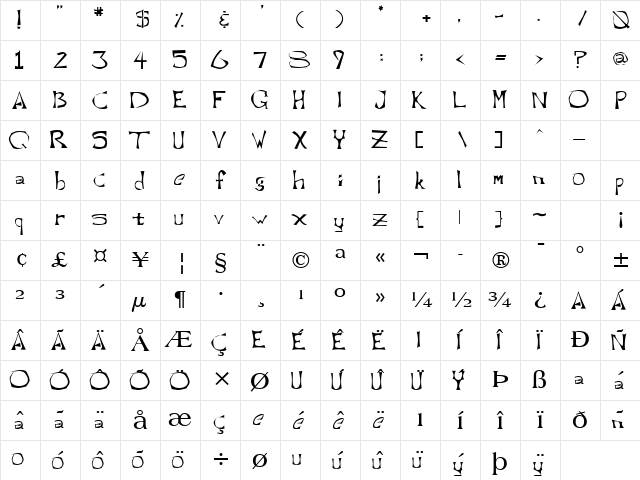
Untitled Regular Free Font
Untitled Regular
Untitled Family
Untitled Regular
Design Context for Untitled
Untitled is a composed and adaptable typeface that performs quietly and consistently across a wide range of design contexts.
Pro Tip: Use Untitled in both headline and body roles to test its range before committing to a single application.